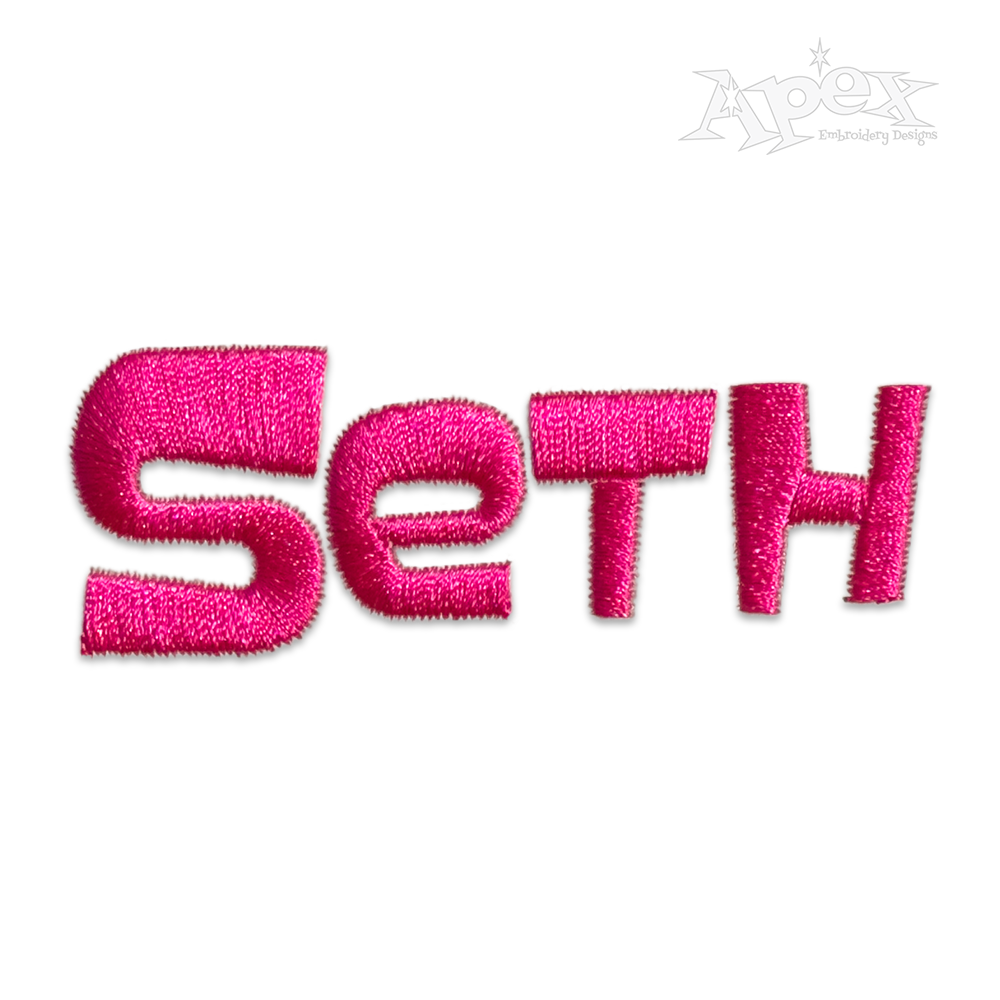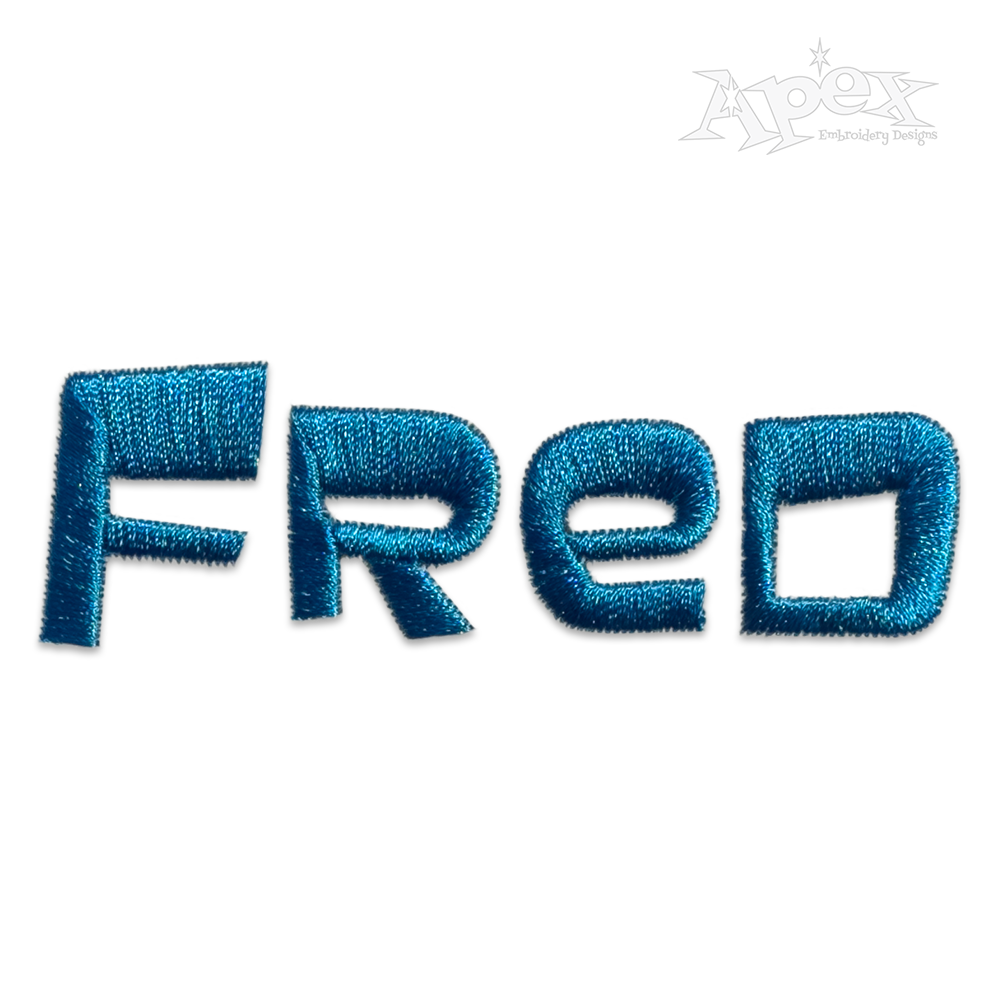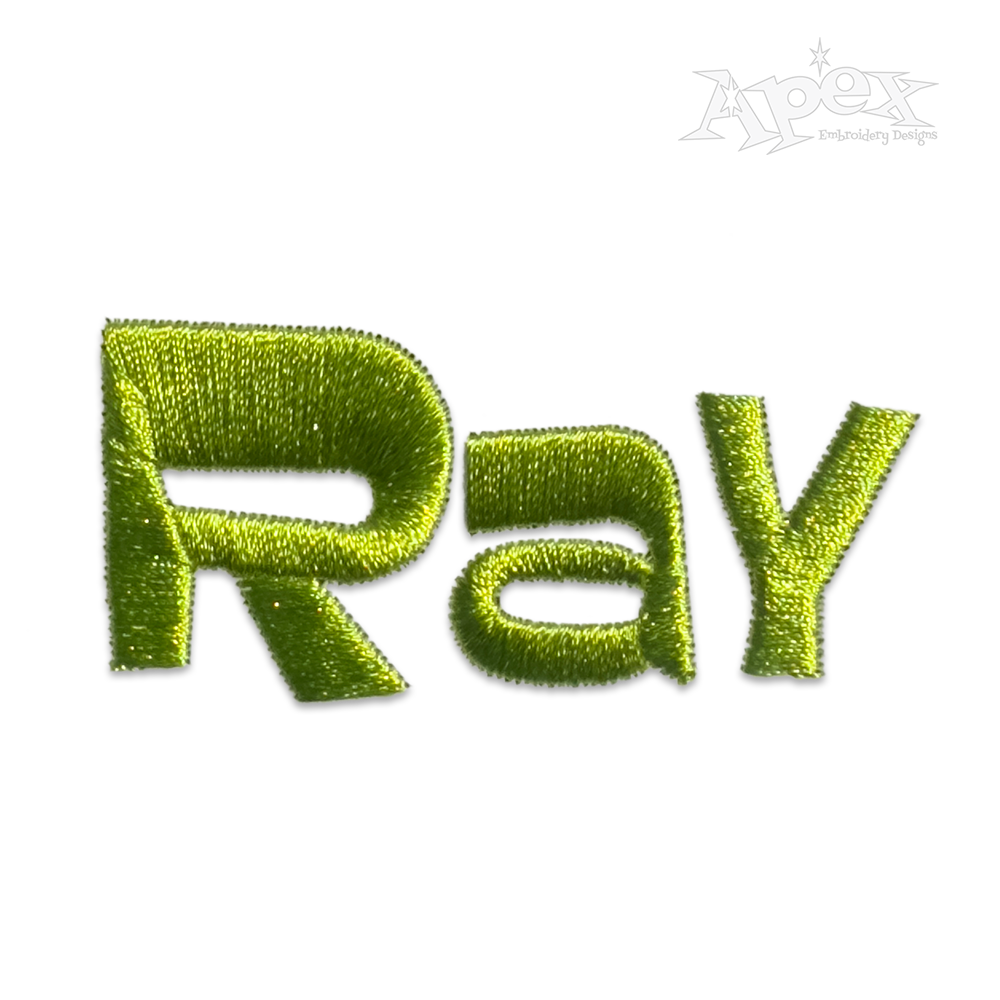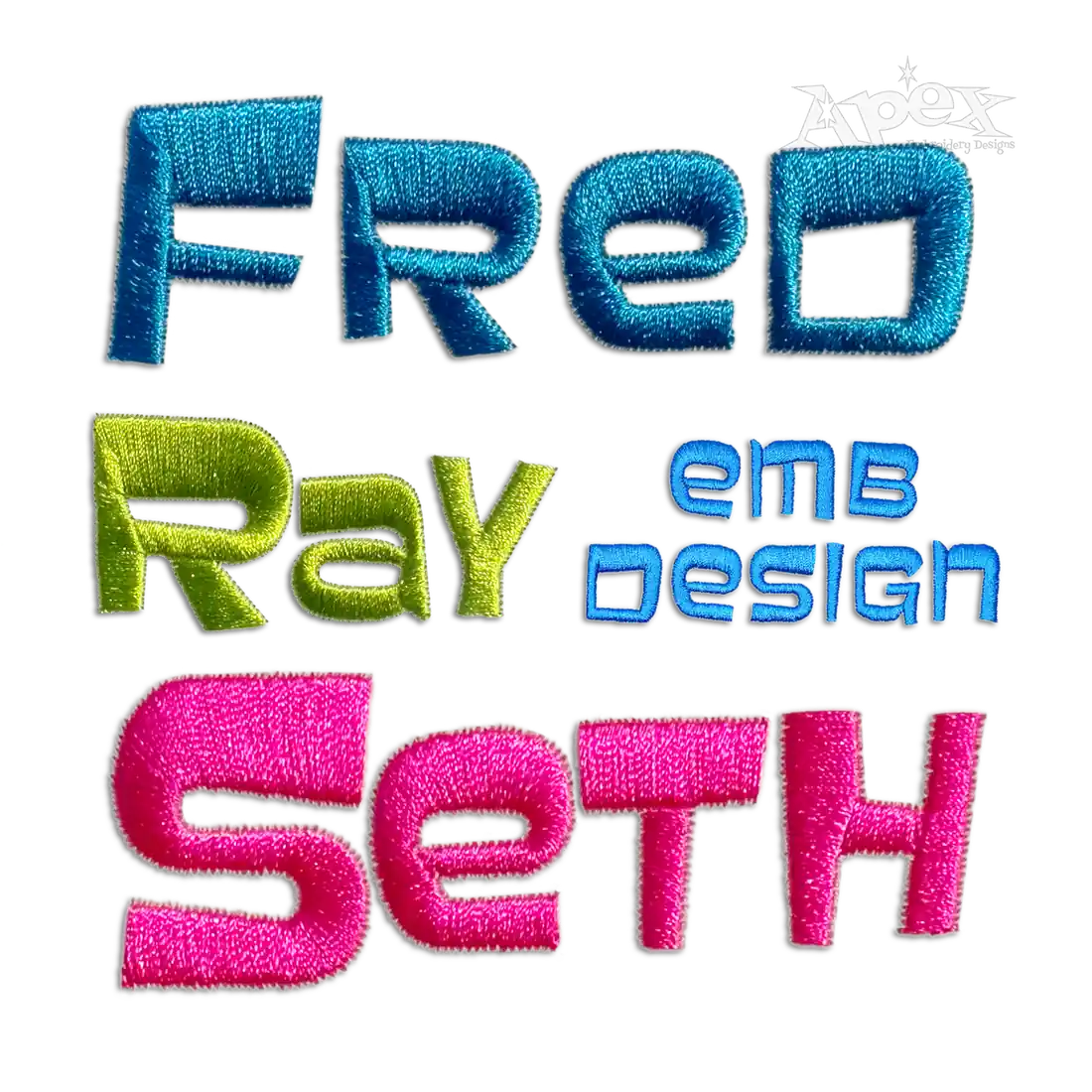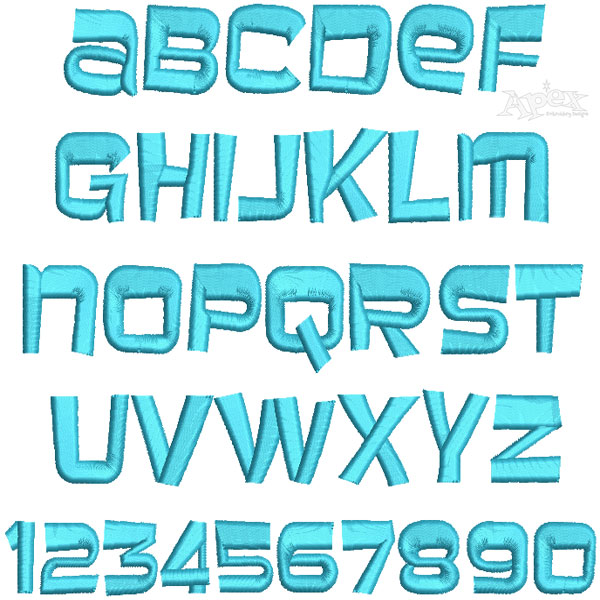
Tubby Embroidery Font
There is an irresistible joy in letterforms that dare to be soft, plump, and unapologetically cheerful. When digitizing the Tubby Embroidery Font, our studio sought to capture the cozy nostalgia of vintage storybook typography, translating rounded, bubble-like contours into rich, high-density satin stitches. As your machine glides across the fabric, each letter fills with a lush, tactile loft that invites the fingertips. Whether stitching cheeky accents onto crisp textiles or personalizing treasured baby gifts, this friendly alphabet brings an approachable warmth and elevated craftsmanship to modern monogramming.
Project Ideas for Tubby Embroidery Font
The rounded, friendly architecture of this font makes it exceptionally versatile across casual, celebratory, and heirloom textiles:
- Heirloom Nursery Essentials: Personalize soft waffle baby blankets, knit cardigans, and quilted bibs with plump, sweet monograms.
- Luxury Table Linens: Stitch playful, modern single-letter monograms onto linen cocktail napkins for casual weekend entertaining or housewarming gifts.
- Personalized Loungewear: Elevate casual weekend wear by adding tonal initials to fleece pullover collars, pajama pockets, or cozy socks.
- Bespoke Resort Wear & Canvas Totes: Monogram beach bags, sun hats, and poolside terrycloth wraps for a sunny, customized holiday aesthetic.
- Bridal & Bachelorette Gifting: Create charming, matching cosmetic pouches or slippers for a wedding party that loves a playful, chic aesthetic.
Because the Tubby font carries generous horizontal weight, thoughtful placement allows its personality to truly shine:
- Corner Diagonal: Set 1.5 to 2 inches from the hemstitched corner of a cocktail napkin or handkerchief for a crisp, tailored framing.
- Center Chest & Pocket Tops: Positioned directly above a pocket seam or centered on a toddler crewneck, the 1-inch scale creates an eye-catching, dimensional focal point.
- Sleeve Cuffs: The compact 0.5-inch and 0.75-inch sizes nestle beautifully along the outer wrist of a dress shirt or sweatshirt cuff for an understated bespoke signature.
- Zipper Pouch Center: Center-aligned on structured canvas or linen zip clutches, providing maximum contrast and textural interest.
Tubby Embroidery Font Craft & Letterform Details
Digitizing miniature, high-density fonts requires a delicate dance between thread tension, stitch angles, and physical physics. At smaller sizes like 0.5 and 0.75 inches, plump letterforms naturally run the risk of closing up or creating unnecessary bulk in tight inner bowls. We meticulously calibrated the push-pull compensation for each individual character, carving out generous internal negative spaces so letters like 'e', 'a', and 'o' remain remarkably distinct after the thread settles into the weave.
Every curve flows along a radial satin progression, guiding the needle around rounded corners without bunching or puckering the underlying fabric. The result is a smooth, continuous ribbon of sheen with reinforced, discreet travel paths hidden beneath topstitch columns. It is an alphabet designed not merely to be read, but to be admired for its plush, sculptural dimension.